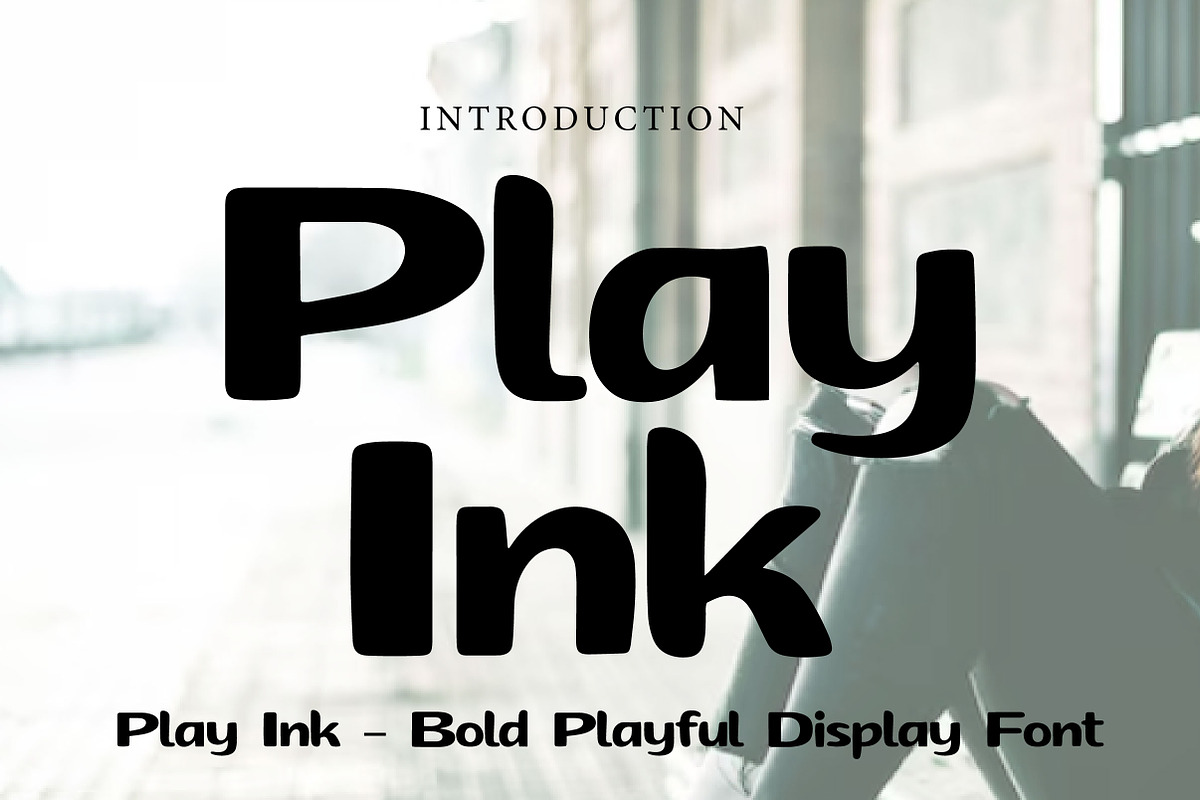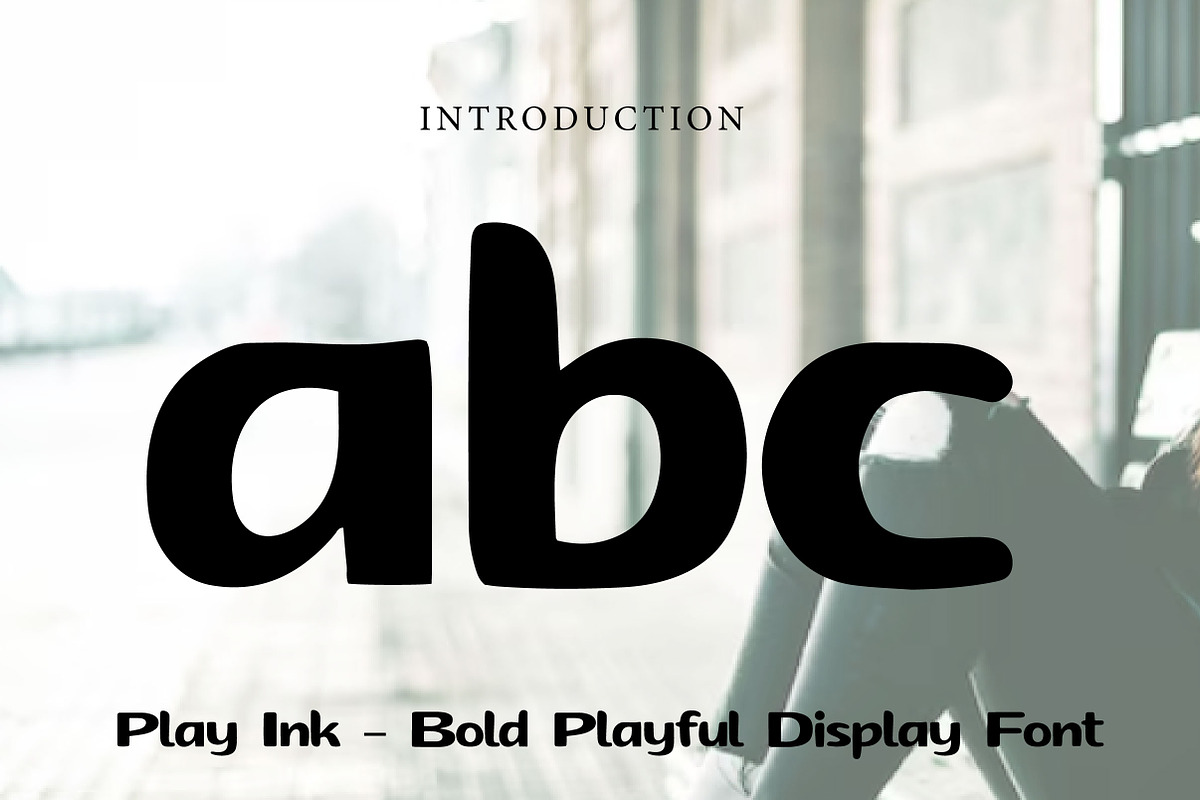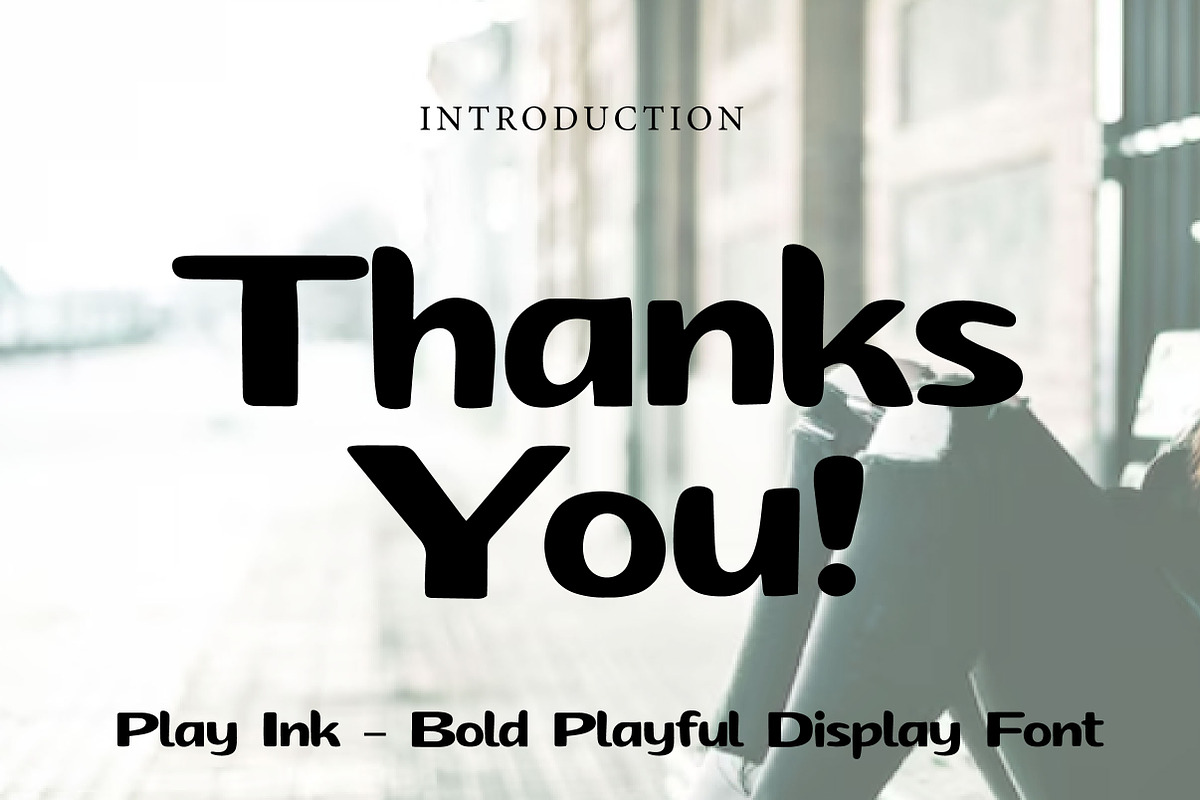
Play Ink
Play Ink – Bold Playful Display Font
Play Ink is a bold, fun, and playful display font with a soft rounded style, perfect for kids designs, branding, packaging, posters, and cheerful creative projects.
Play Ink is a bold and lively display font designed to bring fun, energy, and personality into your designs. With its chunky shapes, rounded corners, and friendly character, this font creates a playful and eye-catching look that feels both modern and approachable.
Its soft yet strong structure makes Play Ink perfect for projects that need a cheerful and memorable touch. Whether you are designing kids branding, product packaging, posters, social media graphics, stickers, logos, or fun event materials, this font helps your typography stand out with charm and confidence.
The bold rounded letterforms keep your text highly readable while adding a warm and expressive personality. Suitable for both print and digital use, Play Ink is a great choice for designers who want a font that feels playful, bold, and full of character.
Perfect For Kids branding Product packaging Posters and flyers Social media graphics Stickers and labels Cute logos and headlines Event and party designs Merchandise design School-related projects Fun display typography Font Features Uppercase letters Lowercase letters Numbers & punctuation Bold playful style Rounded and friendly shapes Clean and eye-catching look Perfect for display use